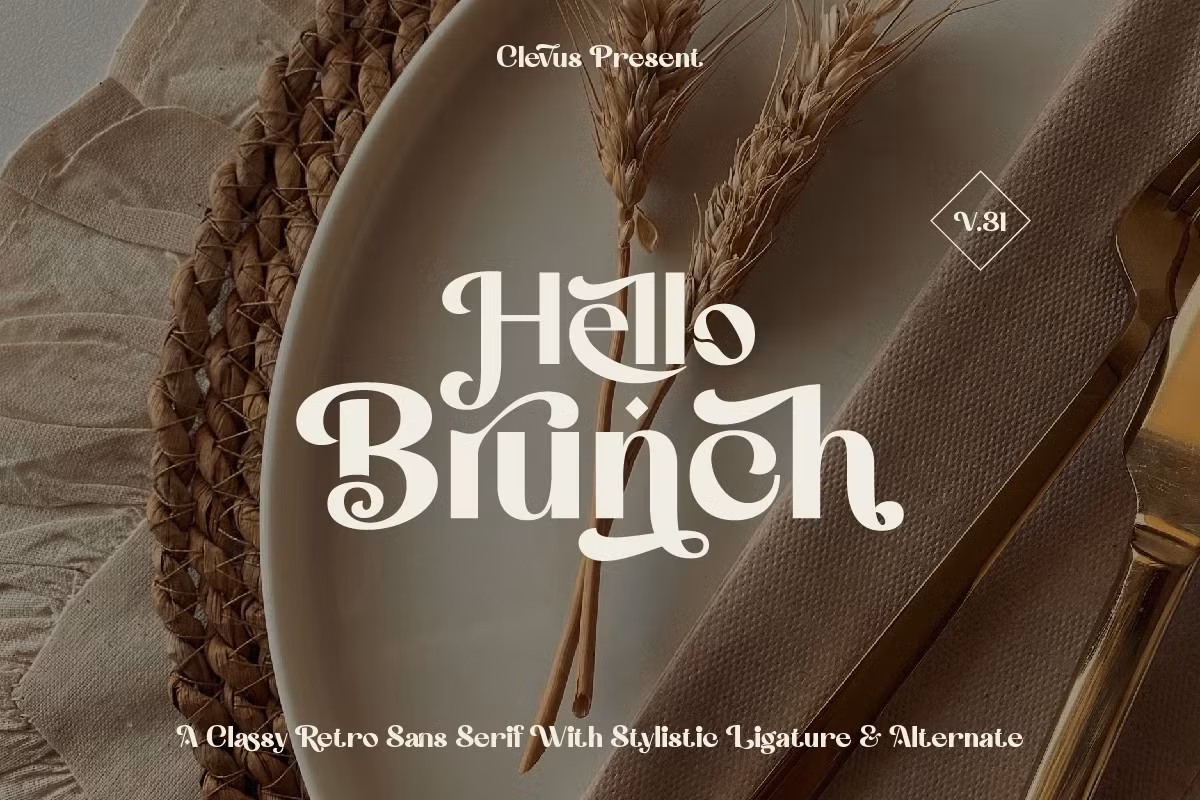
Hello Brunch | Retro Font is perfect for retro cafe branding, vintage restaurant menus, nostalgic food packaging, brunch spot signage, throwback diner materials, classic kitchen designs, retro hospitality campaigns, vintage cookbook covers, cheerful greeting cards, friendly social media graphics, warm lifestyle brands, and delightful culinary communications.
Hello Brunch | Retro Font is exciting because it captures the warm nostalgia and cheerful hospitality of classic American diners through its friendly retro letterforms that embody the joy of leisurely weekend brunches and the comforting atmosphere of neighborhood gathering places. This delightful typeface features rounded characters with vintage charm that evoke the golden age of soda fountains, family restaurants, and the simple pleasure of sharing good food with loved ones. The font's welcoming aesthetic creates instant emotional connections with audiences who appreciate retro comfort, friendly service, and the timeless appeal of classic American dining culture.
Hello Brunch | Retro Font includes comprehensive font families: Regular Friendly Style, Bold Diner Weight, Light Cheerful Touch, Medium Cozy Balance, Italic Welcoming Slant, Condensed Compact Format, Extended Generous Width, Rounded Vintage Version, Shadow Retro Effects, and Special Food Symbols, providing complete solutions for retro hospitality and food-focused design projects that celebrate comfort, nostalgia, and friendly service.
This welcoming typography solution transforms ordinary communications into warm retro dining experiences through its authentic vintage aesthetic and friendly design language. Hello Brunch | Retro Font Free Download enables designers and food brands to access premium retro typography that instantly adds warmth, nostalgia, and friendly appeal to any creative project. The font's carefully crafted vintage elements ensure authentic retro character while maintaining excellent readability and distinctive diner presence.
Restaurants, cafes, and food businesses trust Hello Brunch | Retro Font for its ability to communicate warmth, friendliness, and nostalgic comfort to audiences seeking authentic dining experiences and retro hospitality atmospheres. The typeface's cheerful construction performs beautifully across various applications, from intimate cafe communications to large-scale retro branding campaigns. Its extensive character support includes multilingual capabilities and food-themed design elements that enhance authentic retro brand presentations.
The creative inspiration behind Hello Brunch | Retro Font draws from classic American diner culture, vintage hospitality traditions, and the universal comfort found in friendly neighborhood restaurants that serve as community gathering places. This comfort-focused approach creates a font that feels genuinely retro while maintaining contemporary appeal across different hospitality contexts and nostalgic brand expressions.
Whether creating retro restaurant identities, vintage food packaging, or nostalgic hospitality campaigns, this retro font delivers exceptional results that embody the warmth and friendliness of classic dining culture. Download Hello Brunch | Retro Font today and discover how premium retro typography can transform your design projects into welcoming expressions of nostalgic comfort, friendly hospitality, and the timeless appeal that defines the most beloved dining experiences and community gathering places.